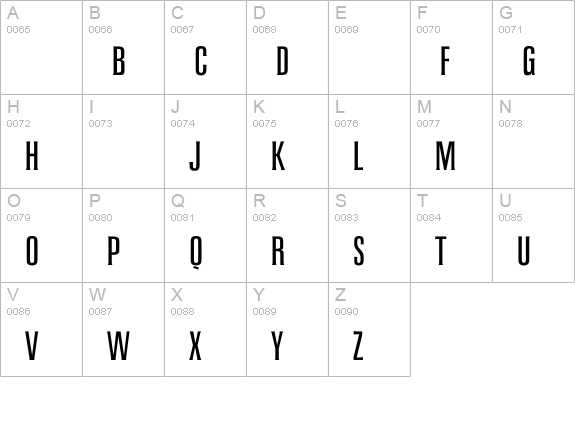
ColiseumLight Font Details
ColiseumLight is a stunning and elegant font that exudes sophistication and class. With its clean lines and stylish curves, this typeface is perfect for adding a touch of refinement to any project. Whether you're designing invitations, creating a logo, or working on a branding project, ColiseumLight will elevate your work to the next level. The best part? ColiseumLight is completely free to download at FontsMarket.com. You can easily access this beautiful font and start using it in your designs right away. Don't miss out on the opportunity to add this versatile and timeless font to your collection. Download ColiseumLight today and take your projects to new heights of style and professionalism.